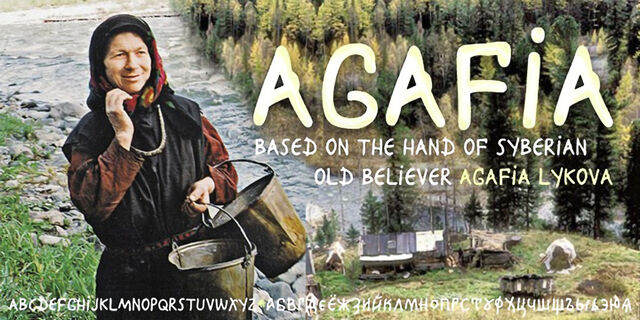
About AgafiaAgafia handwriting script is based on the hand of Agafia Karpovna Lykova — the last member of the Old Believer family who lived like a hermit in the Khakass taiga. The handwriting sample was provided to ParaType by Lev Cherepanov. The face was developed for the new book on the history of Lykov's family. It's built in OpenType format with a contextual substitution of letterforms and specific ligatures. Designed by Gennady Fridman. Released by ParaType in 2009.
earthen, mischievous, playful, folk, naive, slovenly, ancient, taiga, rustic, avian, natural, birchbark, cheap popular, wrong, random, forest, distinctive, peasant, ethnic, provincial, original, extraordinary, handmade, handicraft, grandmother, fairy, epic, green, eco-friendly, traditional, Old Believers, pagan, Russian, informal, hempen, homespun, children, picturesque, cute, Soft, cheerful, farmer, spring, home, organic, summer, archaic, man-made, conservative, nice, tribal, vernacular, dynamic
folklore, advertising, music, festival, splint, history, ethnography, alcohol, vodka, kvass, wine, honey, tale, children's book, healer, herbalist, medicine-man, ecology, nature, handmade, proverb, ditty, byword, baize, Legend, tradition, potion, souvenir, bread, bath, zoo, pet shop, animals, recreation, camp, farm, Spring, bazaar, Hygge, fair, sour cream, sauce, ketchup, fast food, chips, sea, cheese, Instagram, graphics, illustration, house Typeface associated with age: